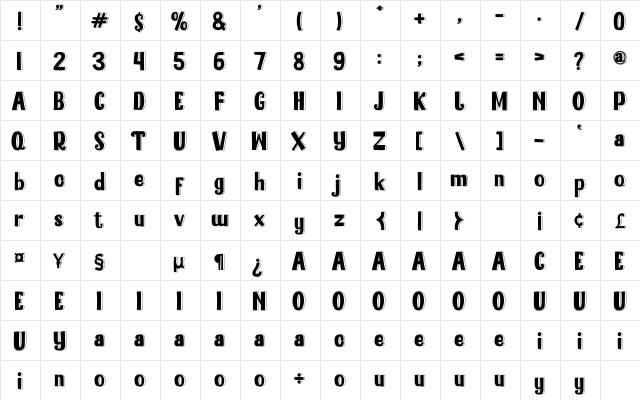
Chicken Soup Regular
Design Context for Chicken Soup Typeface
Chicken Soup is a composed and adaptable typeface that performs quietly and consistently across a wide range of design contexts.